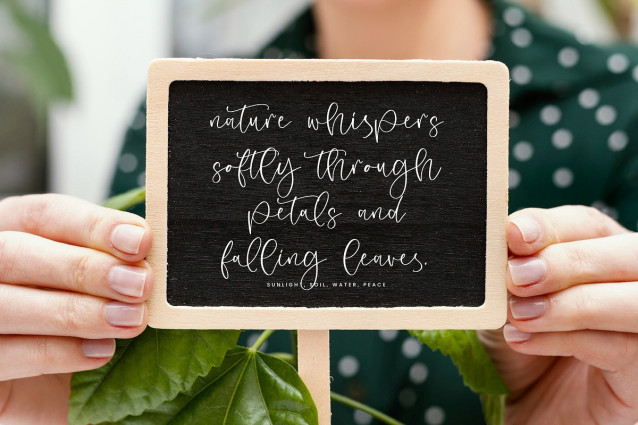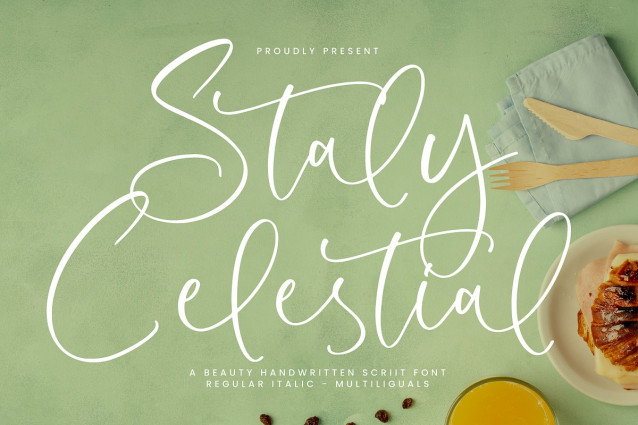
Staly Celestial Font
Staly Celestial Font – A Beauty Handwritten Script Font, from Integritype Studio, perfect for any project like: logos, branding projects, homewares designs, product packaging, mugs, quotes, posters, shopping bags, t-shirts, covers books, business cards, invitation cards, greeting cards, labels, photography, watermarks, special events and all your other luxury projects that require a premium taste.